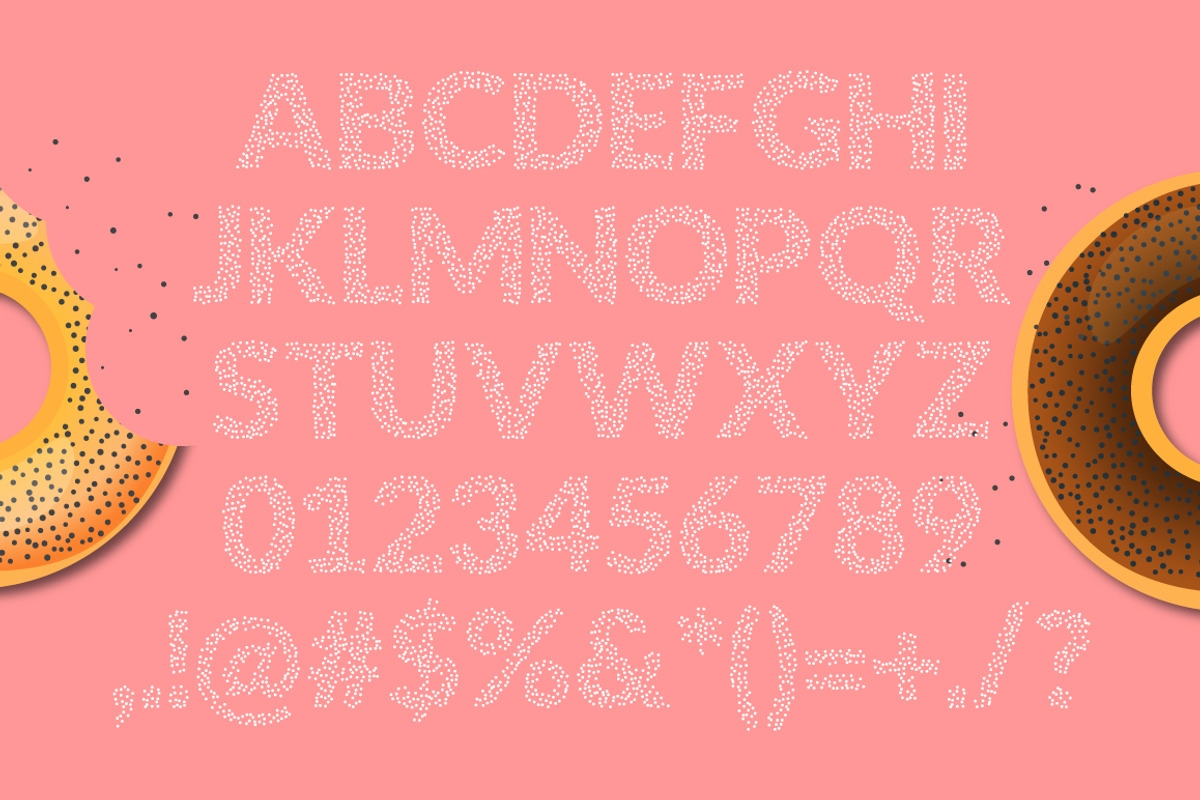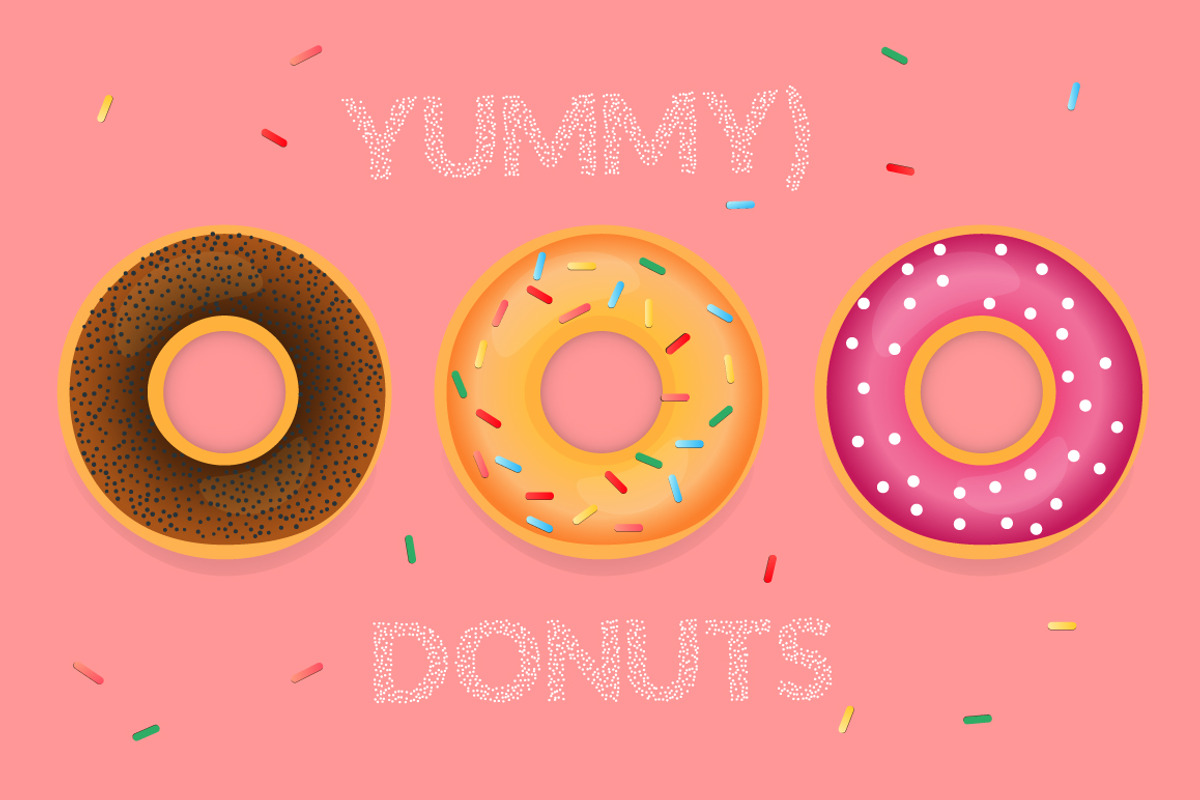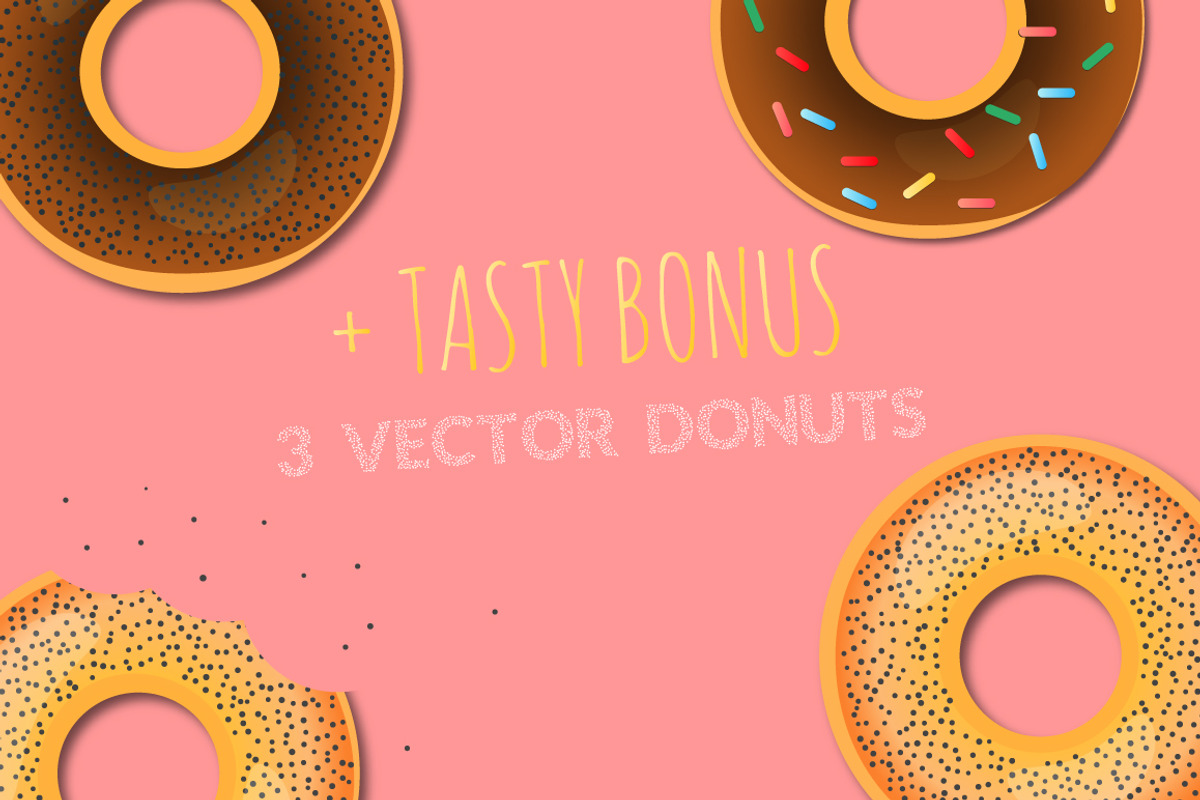
Font Poppy Seeds +Bonus)
Font Poppy Seeds +Bonus) by Max Letters is a font selected for branding, posters, packaging, typography.
- It contains capital letters, numbers and punctuation.
Font Poppy Seeds +Bonus) by Max Letters fits naturally into Branding, posters, packaging, typography.